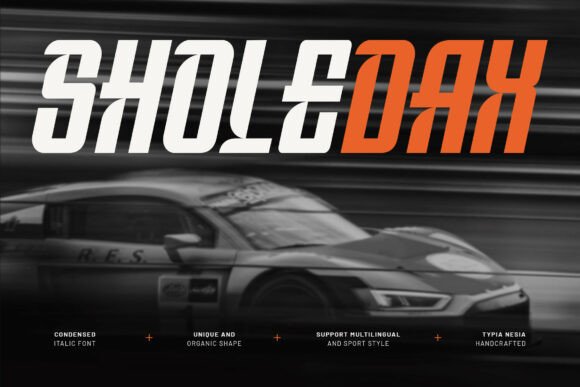
Sholedax: A Modern Condensed Italic Racing Font
In the world of visual communication, typography often carries the weight of a message before a single word is read. For projects demanding an immediate sense of velocity, strength, and modernity, Sholedax stands out as a distinct choice. This typeface is not merely a collection of letters; it is a design tool engineered to evoke the adrenaline of high-speed racing, the precision of futuristic technology, and the intensity of competitive sports. With its bold, tall, and aggressive structure, Sholedax offers a unique aesthetic that bridges the gap between raw energy and clean readability.
Whether you are sketching a logo for a new startup or designing a header for a gaming blog, the right font can define the tone of your entire project. Sholedax provides a condensed italic form that suggests forward motion, making it an ideal candidate for designs where speed and impact are paramount. But beyond the visual flair, understanding how this font serves different needs across various skill levels and industries is key to leveraging its full potential.
Understanding the Design Philosophy Behind Sholedax
At its core, Sholedax is designed with a specific narrative in mind: movement. The font features a condensed width, which allows more text to fit into smaller spaces without sacrificing legibility—a crucial factor for headlines and logotypes. The italic slant is not subtle; it is pronounced, mimicking the lean of a vehicle taking a sharp turn at high velocity. This structural choice creates an inherent sense of dynamism that static fonts simply cannot achieve.
The aggressive nature of the strokes gives the typeface a strong presence, ensuring it commands attention even from a distance. This makes it particularly effective for large-scale applications like posters, billboards, or digital banners. Yet, despite its bold character, the letterforms maintain a level of clarity that prevents them from becoming chaotic. This balance between an energetic look and functional readability is what separates Sholedax from generic "racing" fonts that often prioritize style over substance.
For designers looking to incorporate futuristic elements, the geometric precision of Sholedax aligns well with themes of advanced technology and space exploration. The sharp angles and clean lines suggest a sleek, aerodynamic future, making it versatile enough to transition from a motorsport context to a sci-fi interface design.
Why Different Audiences Value Sholedax
The appeal of a typeface like Sholedax varies significantly depending on who is using it and what they aim to achieve. While the visual attributes remain constant, the priorities shift based on the user's role, experience level, and project goals.
For Beginners and Hobbyists
Those new to graphic design often struggle with finding fonts that look professional without requiring complex customization. Sholedax offers a low barrier to entry because its inherent style does heavy lifting. A beginner creating a poster for a local car meet or a personal gaming channel can apply this font and immediately achieve a polished, industry-standard look. The focus here is on ease of use and instant visual impact. There is no need to manipulate kerning extensively or pair it with obscure secondary fonts; Sholedax works effectively as a standalone statement piece.
For hobbyists, the value lies in the creative confidence it provides. It allows non-professionals to produce work that feels authoritative and energetic, helping them share their passion for racing or technology with a wider audience.
For Professionals and Freelancers
Experienced designers and freelancers approach Sholedax with a different set of criteria: versatility, reliability, and commercial viability. For a branding consultant working with a tech startup, the font's ability to convey innovation while remaining readable across various media is essential. Professionals evaluate whether the font holds up when scaled down for mobile screens or blown up for outdoor signage. Sholedax's robust structure ensures it remains legible in both scenarios.
Freelancers also consider the uniqueness of the typeface. In a market saturated with standard sans-serif options, offering a client a distinctive font like Sholedax can differentiate a proposal. It signals a tailored approach rather than a template-based solution. The commercial value here is tied to the font's ability to elevate a brand's identity, potentially justifying higher project fees due to the specialized aesthetic it delivers.
For Entrepreneurs and Small Business Owners
Business owners often lack the time or resources to experiment with extensive design iterations. Their priority is efficiency and clear messaging. When launching a product related to sports equipment, automotive accessories, or software solutions, Sholedax offers a quick path to a cohesive visual identity. It communicates "speed" and "performance" instantly to customers, aligning the brand with these desirable traits without needing a lengthy explanation.